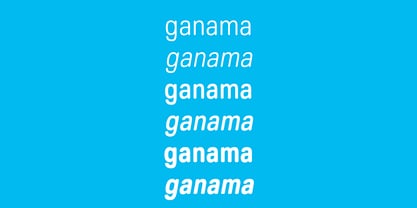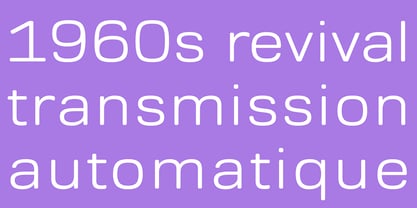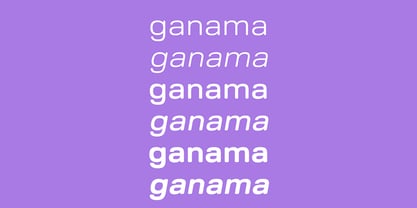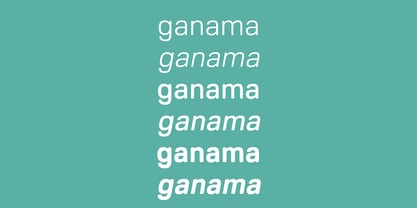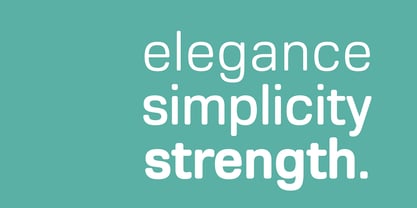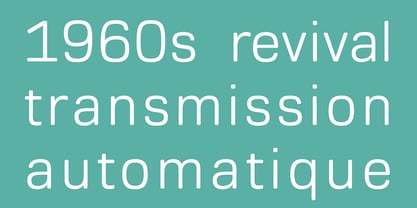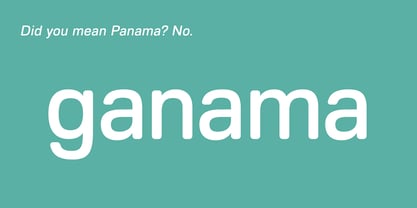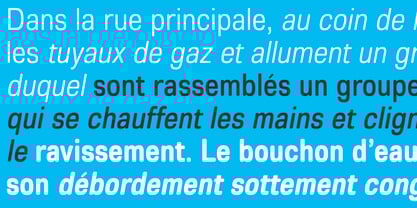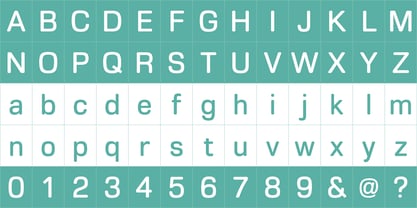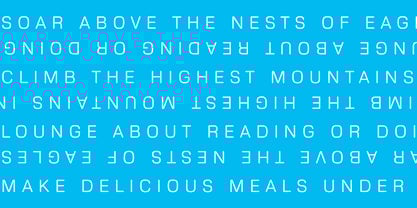
Ganama
by AVP
The Ganama Font Family was designed by Nicholas Garner and published by AVP. Ganama contains 18 styles and family package options.
A square sans serif with rounded terminals, Ganama comes in 3 widths and 3 weights with matching obliques. The font contains a comprehensive latin character set together with useful size variants such as superscript. OpenType features include fractions, tabular figures, case-sensitive forms etc. Popular in the 1960s, square letterforms denoted modernity and style.
Designers: Nicholas Garner
Publisher: AVP
Foundry: AVP